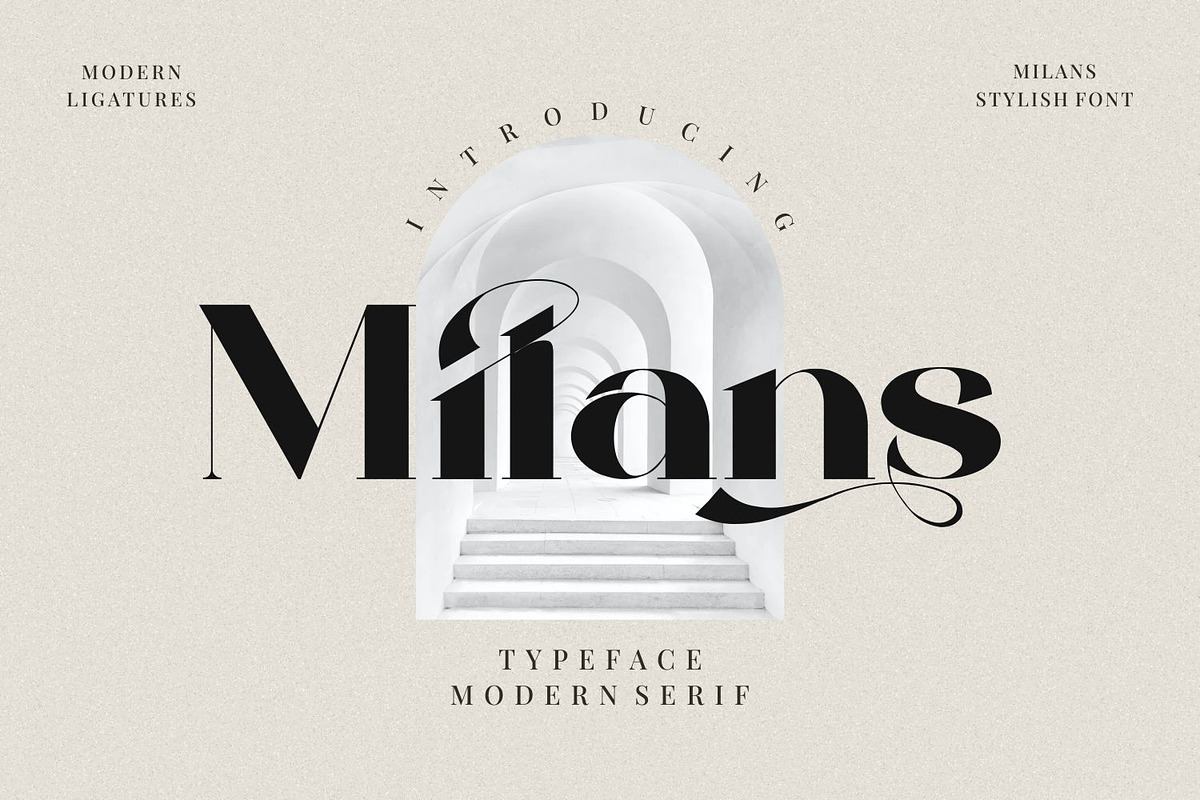
Milans_Typeface Modern Serif Font Free Download is a sophisticated and contemporary typeface that blends classic serif elegance with modern design elements. Featuring sharp lines, clean edges, and high contrast strokes, this font is perfect for branding, editorial layouts, fashion designs, and any project that requires a stylish, professional touch.
Milans_Typeface Modern Serif Font Free Download delivers a refined look that is both timeless and on-trend. Whether you're crafting a high-end logo, designing a polished magazine spread, or working on a luxurious product label, Milans_Typeface adds elegance and clarity to your typography. Download it today and elevate your designs with the modern sophistication of Milans_Typeface!